20 Construction Fonts for Building a Strong Brand
This comprehensive article will reveal 30 free construction company fonts to help construction companies build a professional and reputable brand image and a strong brand following.
30 Best Free Graphic Design Fonts for Construction Companies
1. Riven (free)
If you have the alphabet “V” in your company’s name, then Riven can be the best font for construction logos.
2. Nonchalance (free)
Nonchalance is one of the best free graphic design fonts and can be used for personal and commercial purposes. The Nonchalance font style is popular among architectural companies for its clean and professional typeface.
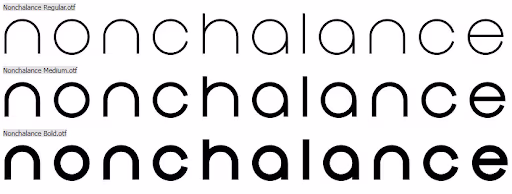
3. Montserrat (free)
You might not know this, but Montserrat has deep roots in architecture and construction. The name itself is inspired by the posters and buildings of a neighborhood in Bueno Aires, Argentina.
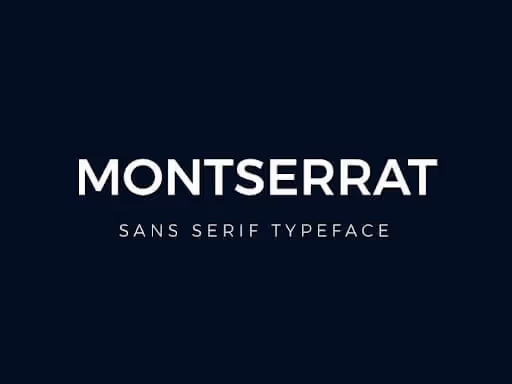
4. Moderna (free)
Moderna is a clean and modern construction company font designed for logos, headlines, and short texts. The font has a neutral appeal and comes in multiple variants and even alternate characters and symbols.
5. Cornelia (free for personal use)
Font duos are pretty popular among businesses, and Cornelia font duo is a serif + script typeface. However, only the serif typeface can be a good choice for construction companies.
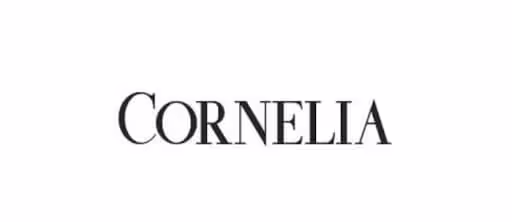
6. Butler (free)
Butler is one of the best free graphic fonts that combines the styles of the Bodoni family and Dala Floda. Butler contains a total of 334 characters in different shapes and styles.
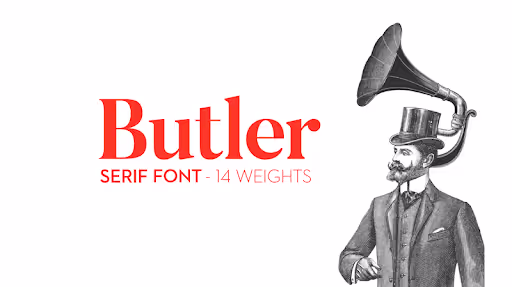
7. Asterone (free for personal use)
Construction companies like to blend the elements of strength and boldness into the brand image; for that purpose, Asterone can be a good font choice.
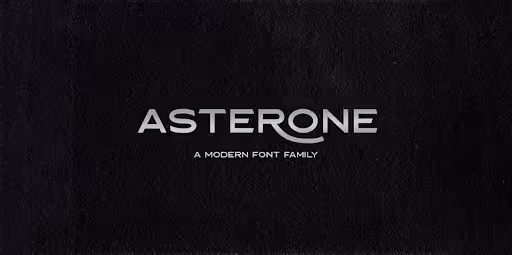
8. Adolphus (free)
Adolphus is one of the best free graphic design fonts for construction companies. Adolphus’ slender and fluid script font style makes it look professional and stylish on your business cards, logos, and letterheads.
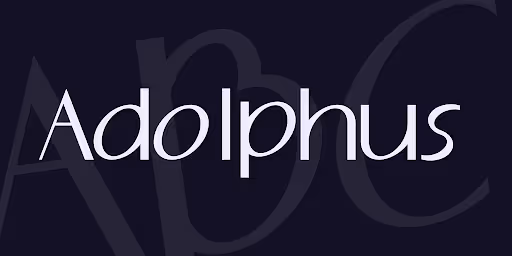
9. Knucklehead (free)
This antique font family, which includes ten typefaces, is available in two styles. It’s influenced by western American culture and has a nostalgic feel. However, be aware that this contains just uppercase letters.
10. Obrazec (free)
Obrazec is a sans serif font with a strong industrial vibe. The solid and bold design conjures up images of concrete and steel.
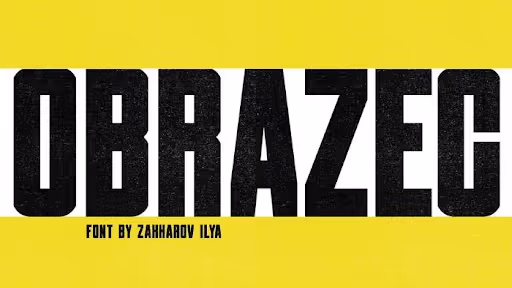
11. Derivia (free)
Yes, Derivia might not be the ideal choice for a construction font, and it’s light, if not feminine, but it’ll look stylish and aesthetic with metal engravings on a corporate emblem or your office door.
12. Lemon Milk (donationware)
Lemon Milk’s clean design and sharp angles make it a simple yet effective font for a construction company.
13. Maveryk (free)
Maveryk is a thick and robust industrial typeface and features some modest serifs and uneven edges that give it a hand-drawn appearance. If you want your logo to have both a vintage and an industrial look, go for it.
14. Cornerstone (free)
If you are looking for a simple, minimalistic, yet impactful font,Cornerstone can be one of the best fonts for a construction logo.
15. Mixolydian Titling (free)
Mixolydian Titling is a technical sans serif font that takes inspiration from the U.S. Federal Highway Administration Standard alphabets, otherwise known as Highway Gothic. So, it would make for a perfect construction sign font.
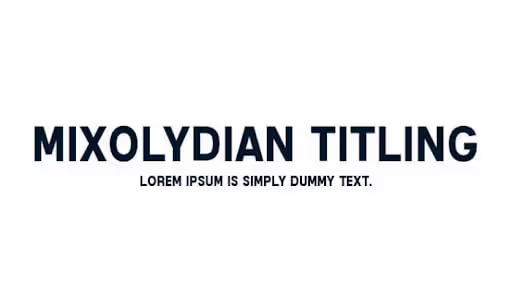
16. Market Deco (free for personal use)
Art Deco fonts are considered some of the best fonts for construction logos, because they are deeply rooted in architectural designs, buildings, and decorative elements.
Market Deco is one of the most straightforward and minimalistic Art Deco fonts.
17. Parking (donationware)
Parking is another Art Deco style font that comes with condensed all-caps letters, and the industrial appeal of this font gives it a distinct characteristic.
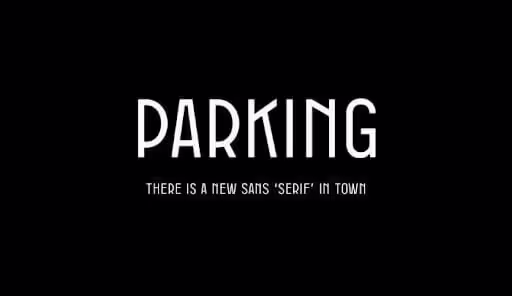
18. Architectural (free)
Architectural is a sleek and sophisticated font that features condensed width and unusual height.
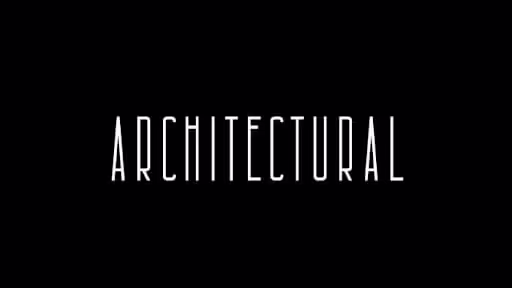
19. Neothic (free)
Neothic is a strong construction typeface, but it’s also elegant and stylish. The ligature in the letter Q and the extra strokes at the ends of each letter gives it an aesthetic appeal.
20. The Bold Font (free)
This font style is exactly like its name sounds. The Bold Font is a heavy, bold, sans serif font with definitive shapes, making it a perfect font for construction industry.
What are good fonts for construction companies? This list provides you with plenty of options.